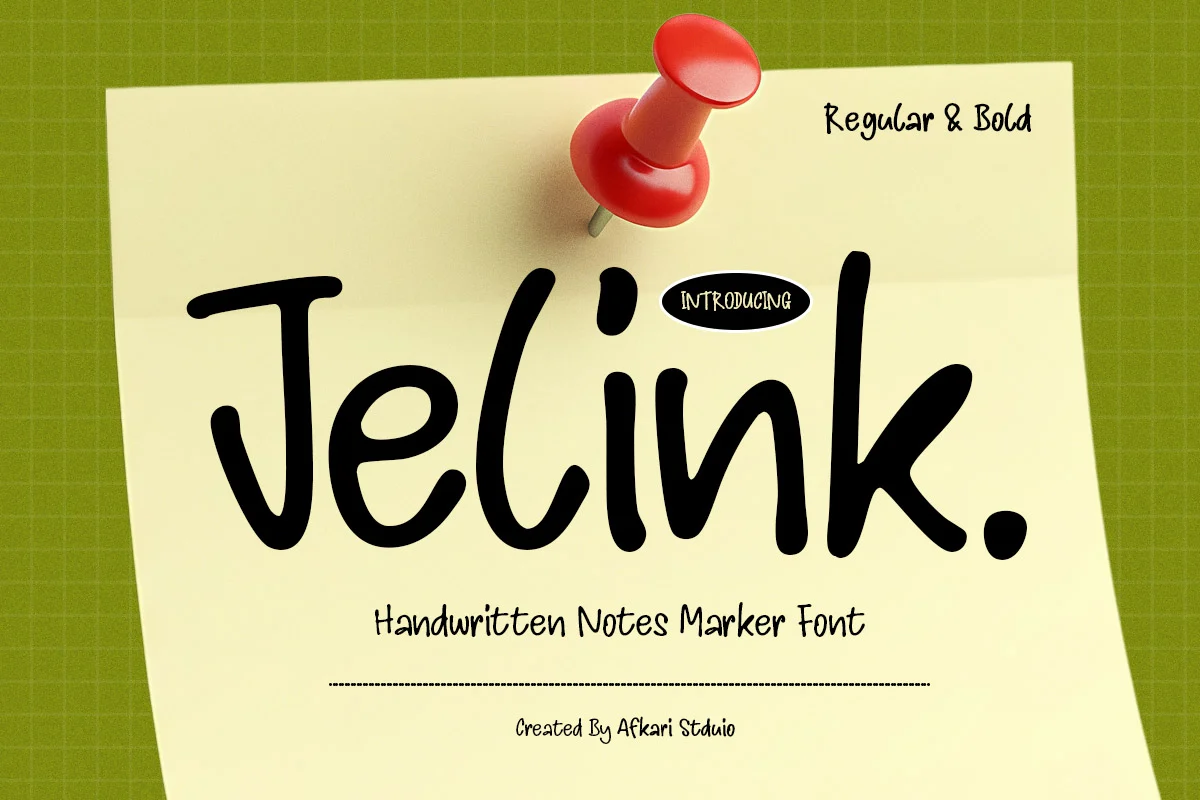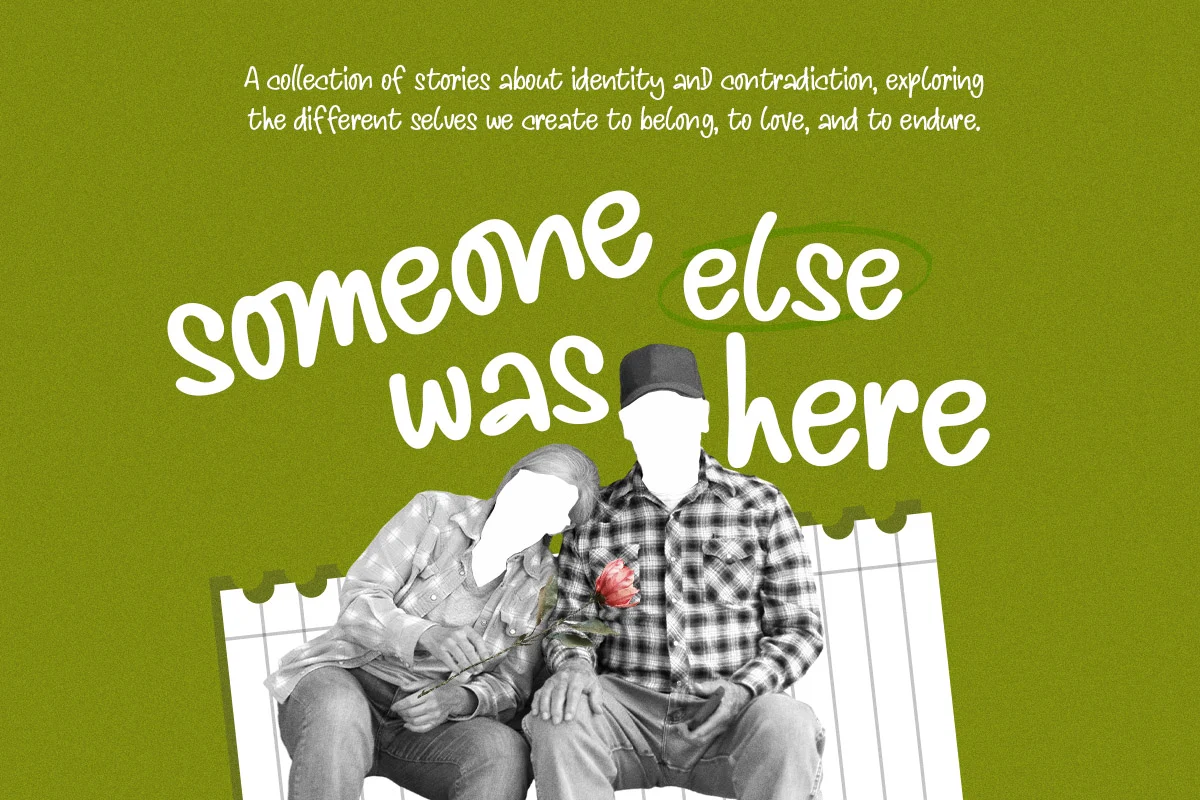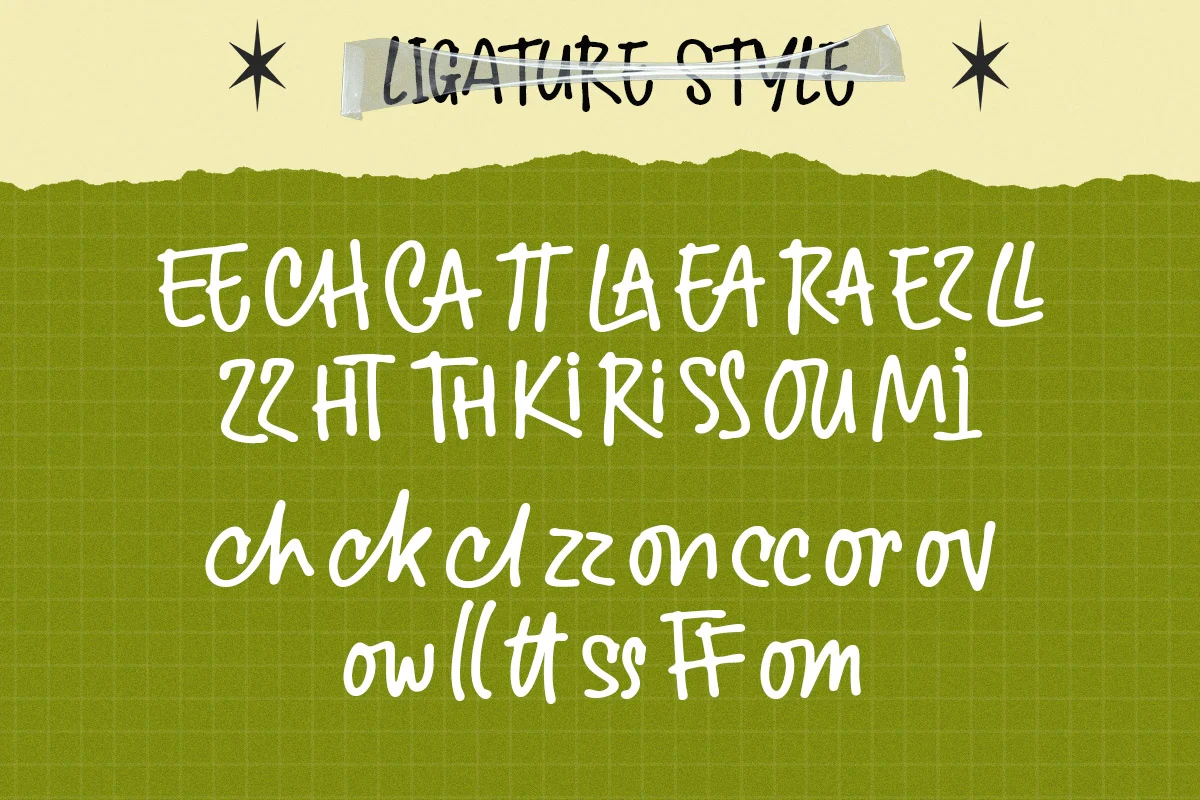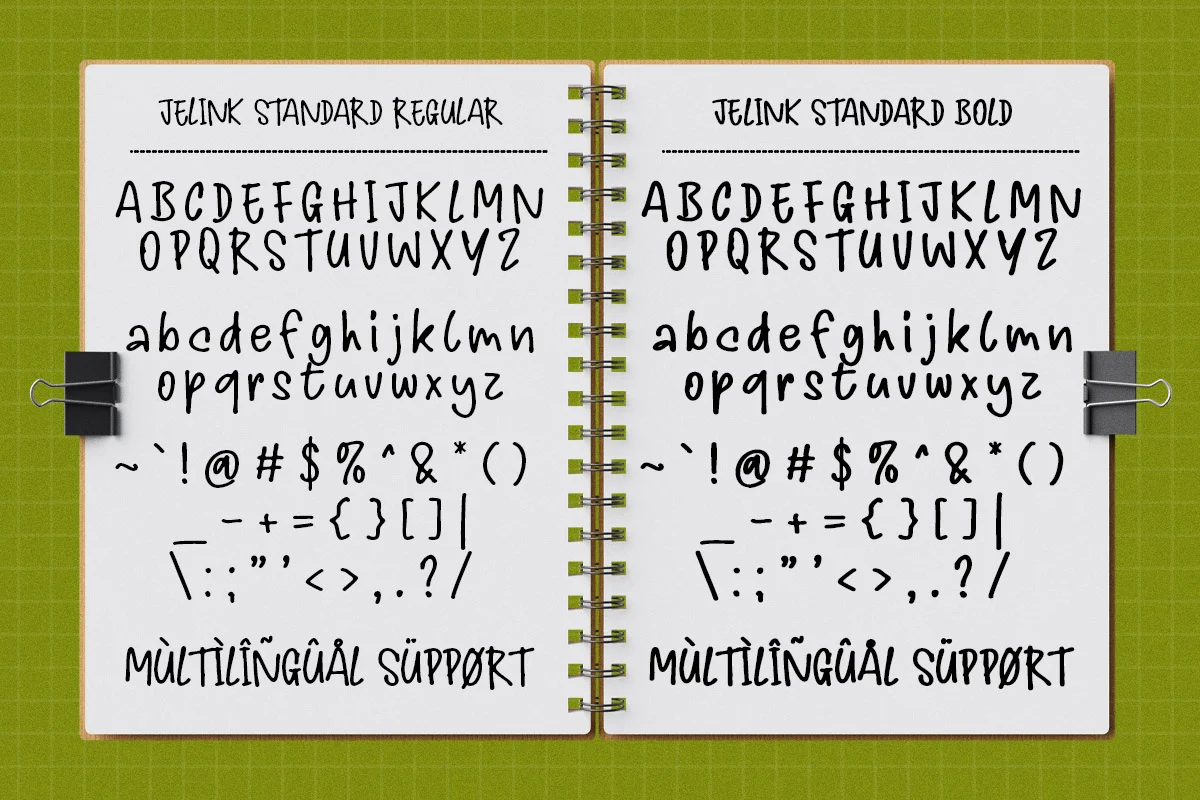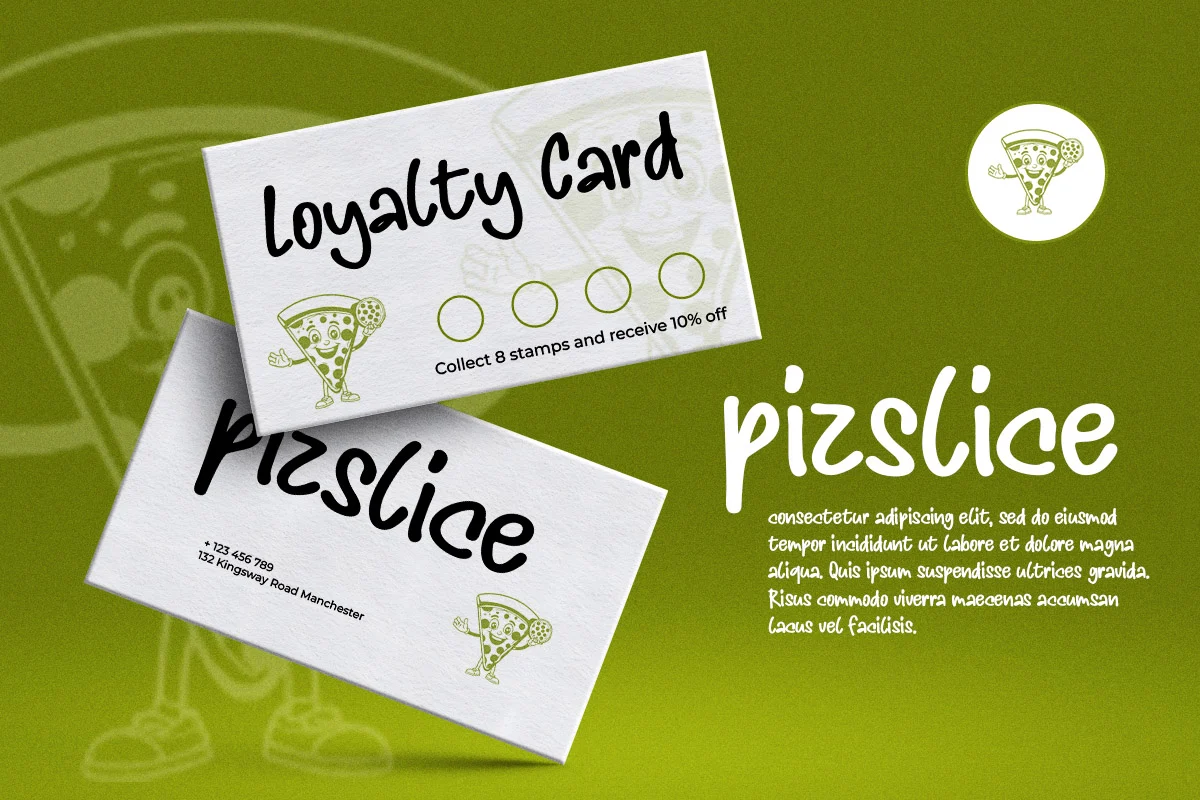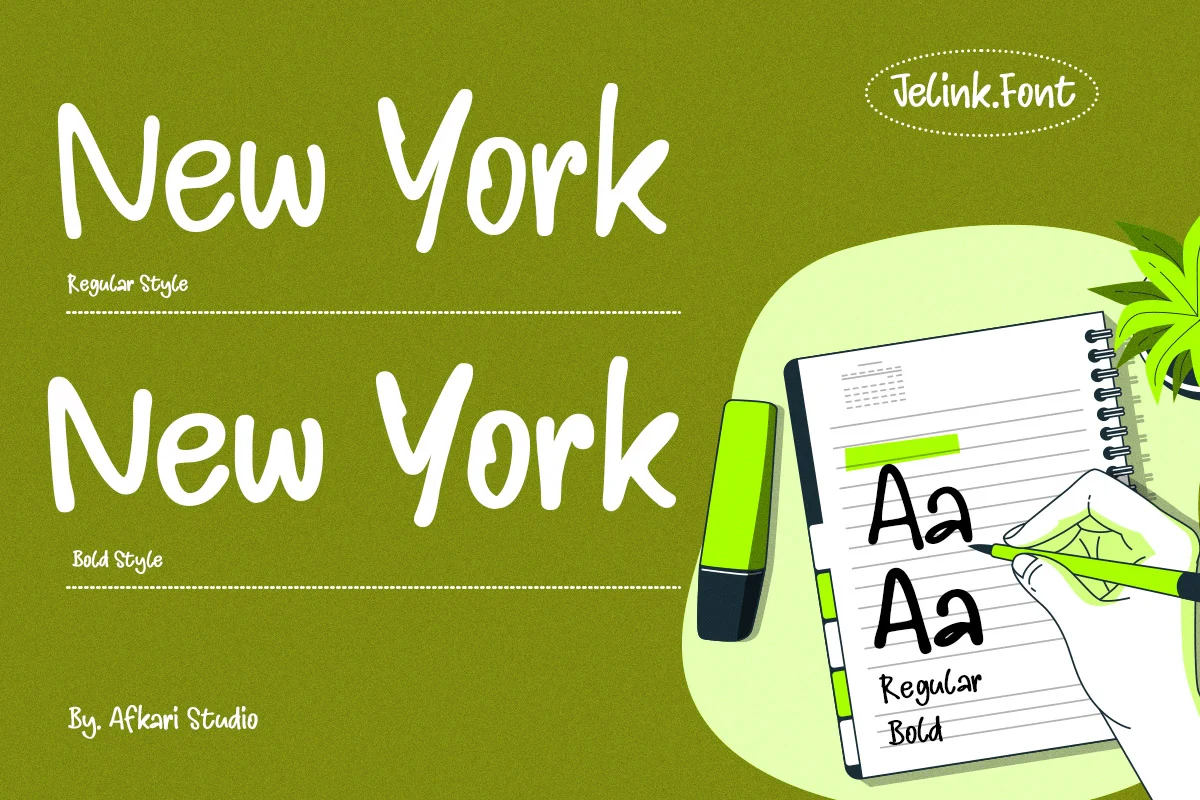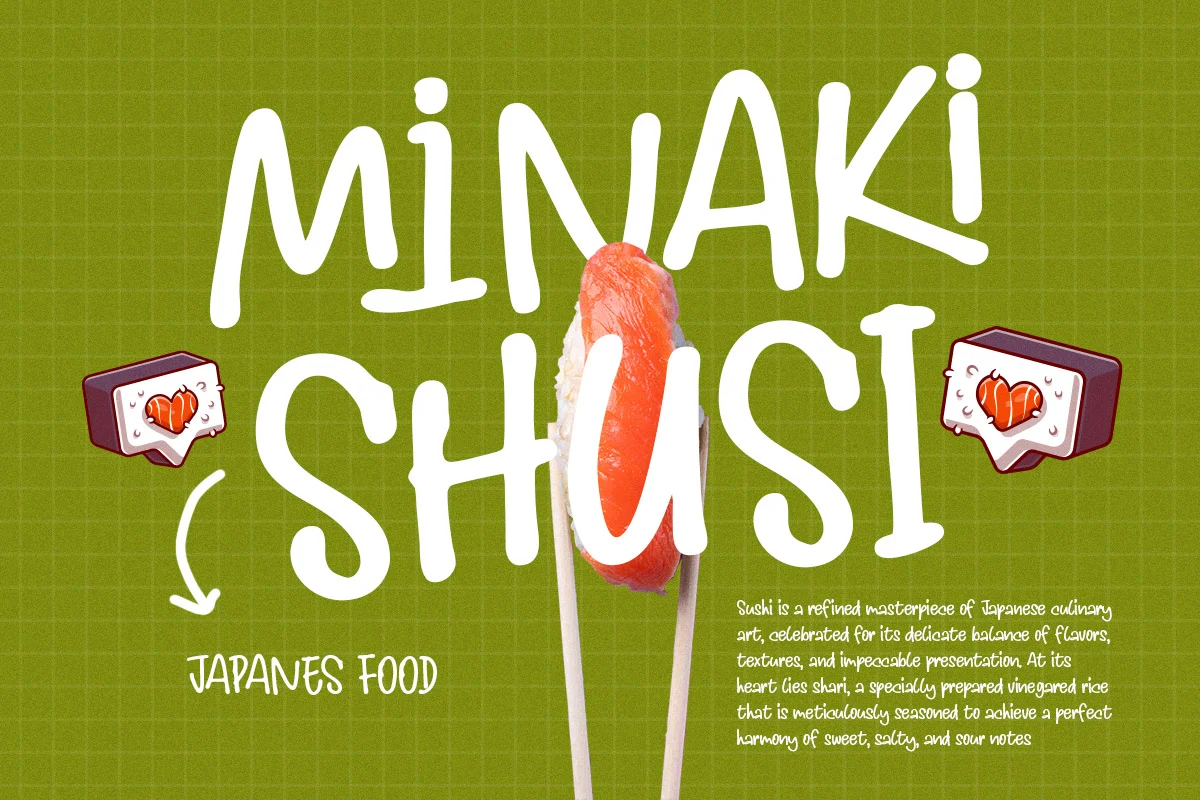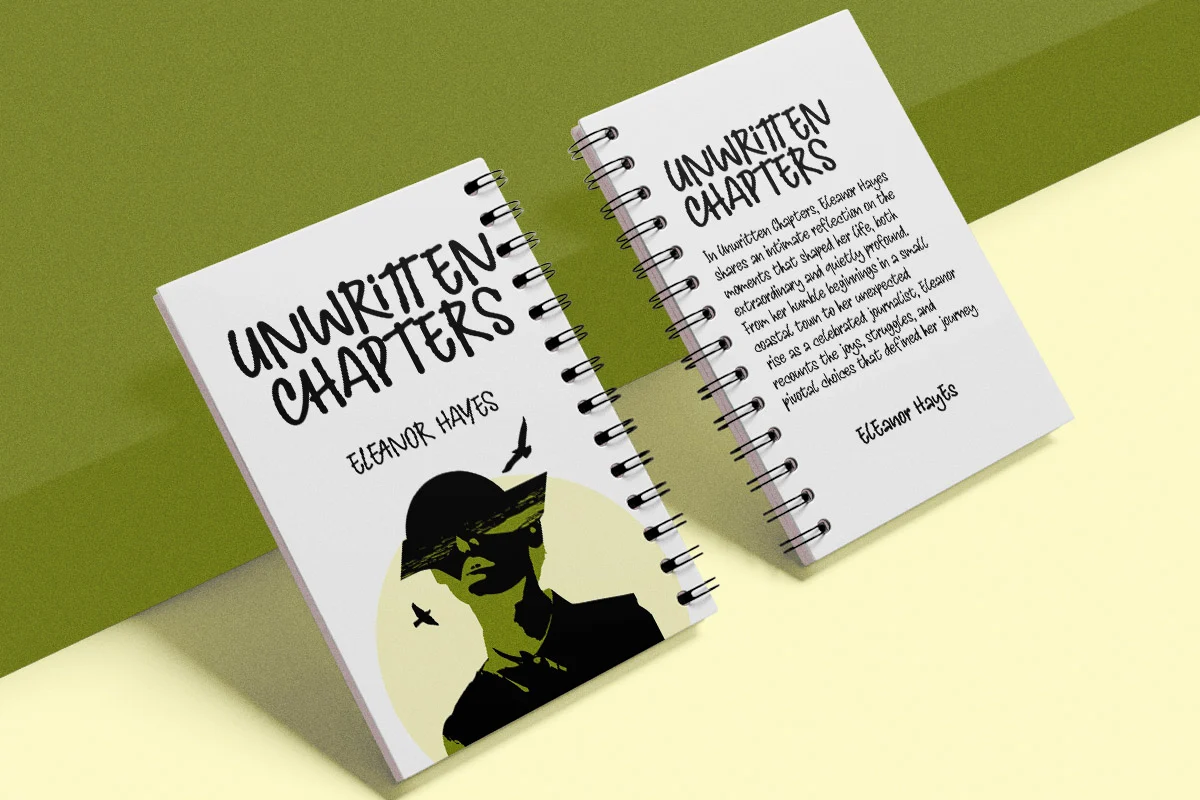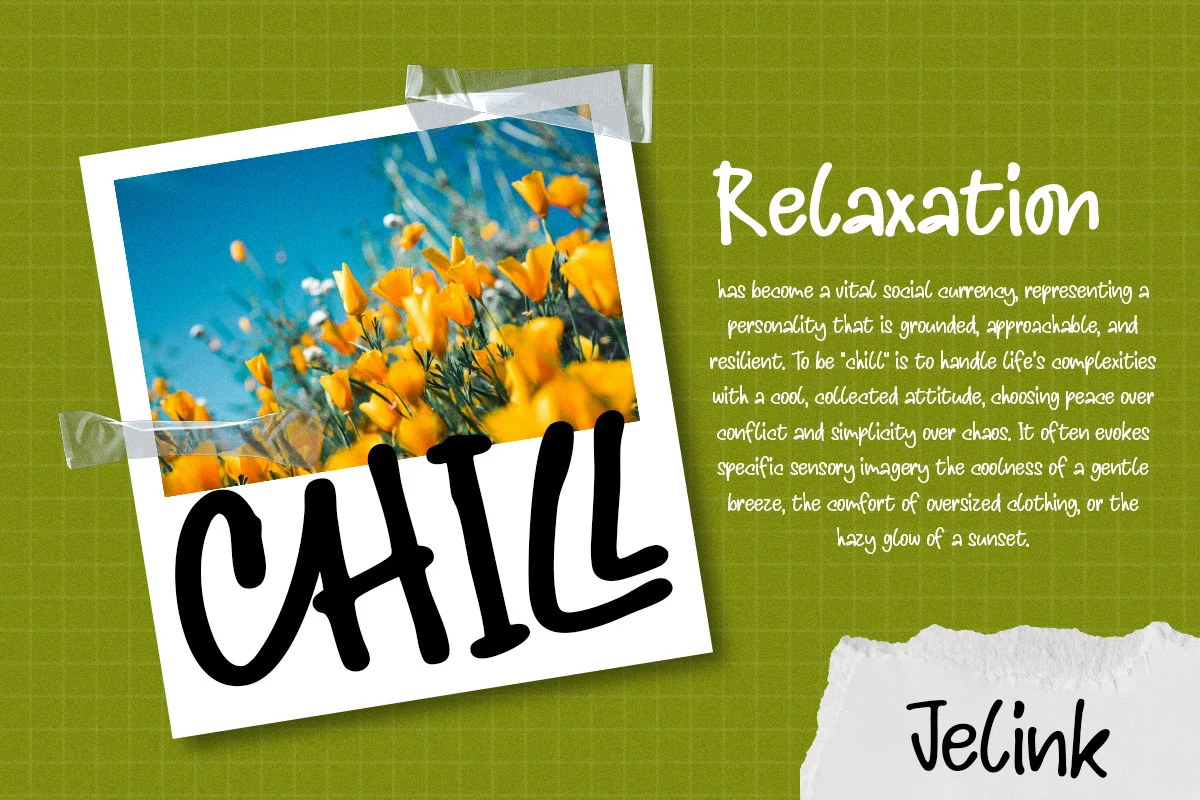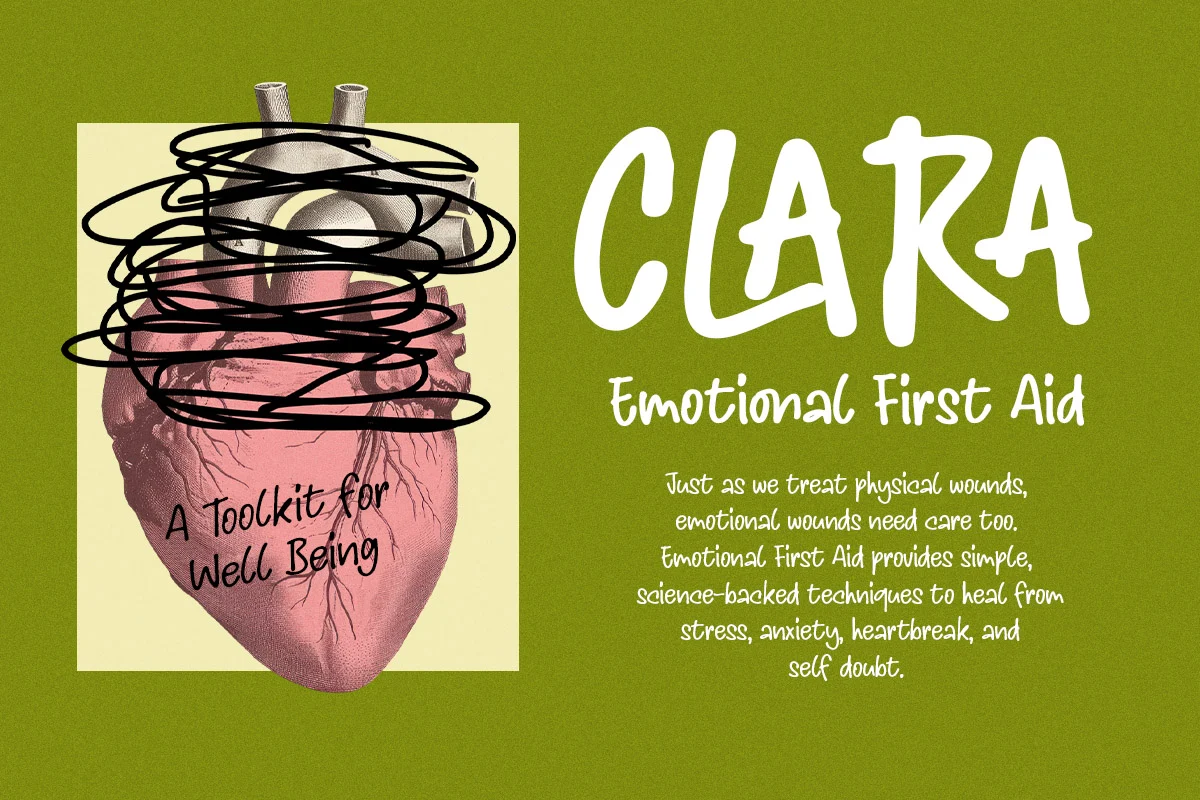
Jelink is a natural handwritten marker note font that captures the authentic feel of real pen strokes on paper. Designed with a casual and expressive style, this font brings warmth, personality, and a human touch to your creative projects.
Inspired by everyday handwriting and quick marker notes, Jelink features smooth curves, slightly rough edges, and organic flow—making it perfect for designs that need to feel personal, friendly, and approachable. Whether you’re creating social media content, branding, or printable designs, Jelink adds a relaxed and creative vibe.
This handwritten font works beautifully for quotes, notes, planners, packaging, posters, invitations, and digital content. Its legibility combined with a natural handwritten look makes it both stylish and functional across various design needs.
Highlighted Features:
- Compete set of uppercase and lowercase letters, numerals, and punctuation
- Natural handwritten marker style with authentic stroke texture
- Smooth and readable letterforms
- Multilingual support includes characters like ä, ö, ü, Ä, Ö, Ü, ß, ¿, and ¡
Add a personal and expressive touch to your designs with Jelink — the perfect handwritten marker font for creative storytelling.